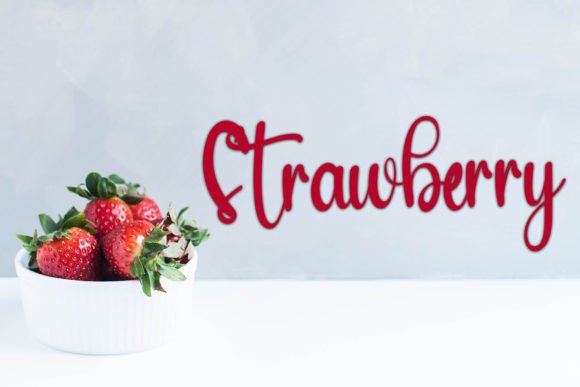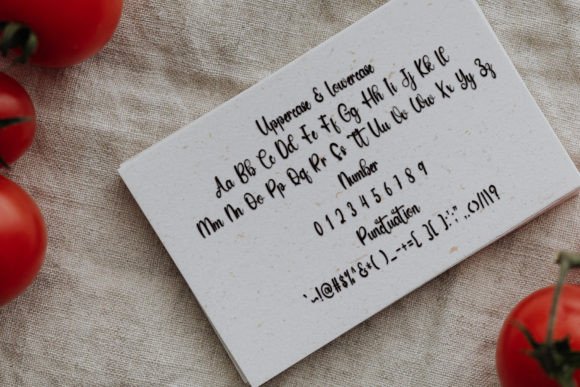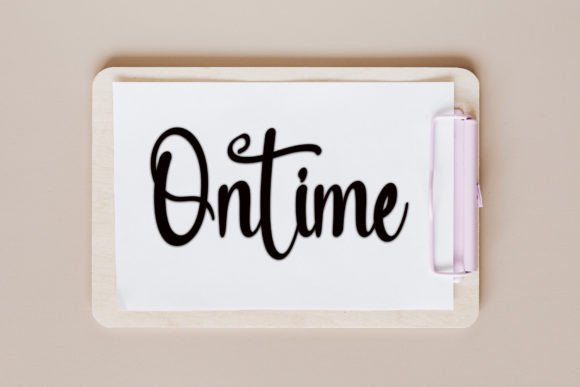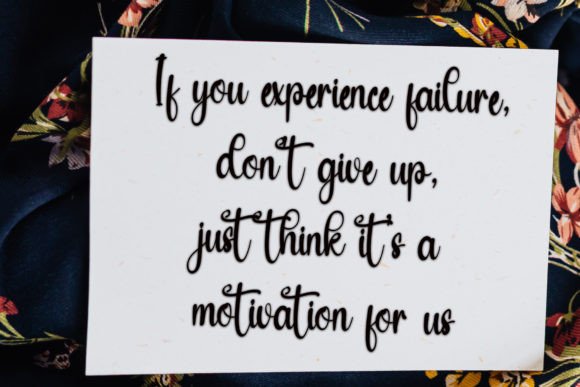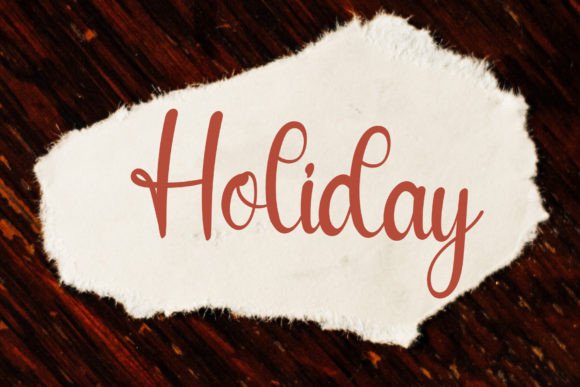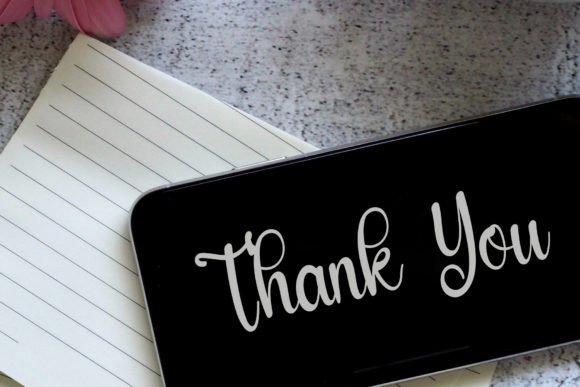
Baby Ayana Font: Elevate Your Designs with Elegance and Sophistication
In the world of typography, few fonts manage to capture the essence of elegance and sophistication as beautifully as the Baby Ayana Font. This stunning script font has taken the design community by storm, offering a versatile and stylish solution for a wide range of creative projects. From wedding invitations and thank you cards to quotes, greeting cards, logos, and business cards, Baby Ayana brings a touch of handwritten luxury to any design.
The Charm of Baby Ayana
Baby Ayana is more than just a font; it’s an expression of style and refinement. Its intricate strokes and fluid connections give it a personal, handcrafted feel that is sure to make your designs stand out. Whether you’re working on a romantic wedding invitation or a professional business card, Baby Ayana adds a level of sophistication and charm that is hard to replicate with standard fonts.
One of the key advantages of the Baby Ayana Font is its incredible versatility. It’s designed to work beautifully across various design projects, including:
- Wedding Invitations: Add a touch of romance and elegance to your wedding invitations, making the special day even more memorable.
- Thank You Cards: Express your gratitude in style with beautifully crafted thank you cards that leave a lasting impression.
- Quotes and Greeting Cards: Bring inspiration and joy to your readers with quotes and greeting cards that showcase the beauty of Baby Ayana.
- Logos and Business Cards: Elevate your brand’s image with a sophisticated logo and business card design that exudes professionalism and style.
Why Choose Baby Ayana Font?
- Unique and Eye-Catching: Baby Ayana’s distinctive style ensures that your designs will catch the eye and leave a memorable impression.
- Elegant and Sophisticated: The font’s elegant strokes and sophisticated look make it perfect for designs that require a touch of luxury.
- Easy to Read: Despite its intricate design, Baby Ayana remains easy to read, making it practical for a wide range of applications.
- Highly Versatile: From digital designs to print materials, Baby Ayana adapts beautifully to various mediums and design requirements.
Tips for Using Baby Ayana Effectively
- Pair with Complementary Fonts: For maximum impact, pair Baby Ayana with fonts that complement its style, such as simple sans-serifs or elegant serifs.
- Adjust Size and Color: Experiment with different sizes and colors to highlight key information or to create visual hierarchy in your designs.
- Use for Headers and Titles: Baby Ayana shines in headers and titles, so use it to draw attention to important information or to add a decorative touch to your designs.
Baby Ayana Font is a game-changer for designers and crafters looking to infuse their projects with elegance, sophistication, and a personal touch. Its versatility, beauty, and readability make it an excellent choice for a wide range of applications, from wedding invitations and greeting cards to logos and business cards. By incorporating Baby Ayana into your design toolkit, you’ll be able to create stunning, one-of-a-kind designs that leave a lasting impression.
Whether you’re a professional designer or a DIY crafter, Baby Ayana Font is sure to inspire your creativity and elevate your designs to new heights of elegance and sophistication.